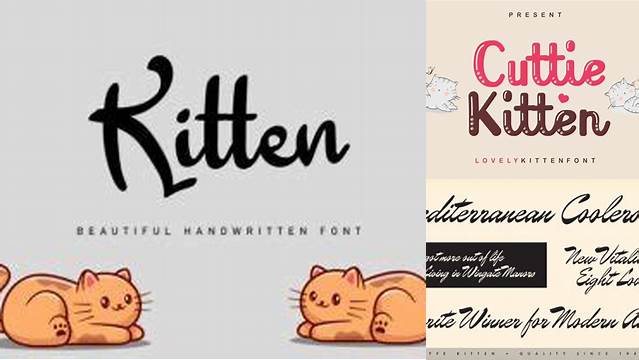
Hey everyone! Ever stumbled upon a font that just screams retro cool? That's exactly what the Filmotype Kitten font is all about, guys. It’s got that mid-century vibe, that vintage charm that just makes your designs pop. And guess what? Today, we’re diving deep into how you can get your hands on this fantastic font for free. Yes, you heard that right! We're talking about a free download of the Filmotype Kitten font. So, buckle up, grab your favorite beverage, and let's get started. This isn't just about downloading a font; it's about unlocking a whole new world of creative possibilities. This article provides you with information on how to find the Filmotype Kitten font, how to use it, and what makes it so special in the world of design.
H2: Filmotype Kitten Font: A Blast from the Past
Alright, first things first: what is Filmotype Kitten? Picture this: you're flipping through old magazines, vintage advertisements, or classic movie posters. That's the vibe, guys! Filmotype Kitten is a script font that perfectly captures the essence of mid-century design. Its flowing curves, playful strokes, and overall elegance make it a favorite among designers who want to add a touch of nostalgia to their projects. It's not just a font; it's a statement. It tells a story, evokes a feeling, and instantly transports you back to a time of soda fountains, drive-in movies, and classic cars. The beauty of Filmotype Kitten lies in its versatility. Whether you're designing a logo, creating website headers, crafting social media posts, or even printing wedding invitations, this font adds a unique touch that elevates your work. The meticulous design of the font, with its carefully crafted letterforms, ensures that the text is both readable and visually appealing. It's a font that's meant to be enjoyed, a font that encourages creativity. So, what makes Filmotype Kitten stand out from the crowd? It's the attention to detail, the careful balance between elegance and playfulness, and the sheer character it possesses.
Filmotype Kitten font isn’t just a font; it’s an experience. It's like finding a hidden gem in a treasure chest of design options. Its retro flair adds a certain something to every project, bringing it to life in a way that few other fonts can manage. Its legacy stretches across various mediums, from print to digital, always leaving a mark of timeless elegance. So when you're choosing Filmotype Kitten, you’re not just choosing a font; you’re choosing a piece of design history, a dash of nostalgia, and a whole lot of creative freedom. You are embracing a font that speaks volumes, and its appeal lies in its ability to bring that classic charm to modern designs. Every curve and stroke is a reminder of an era where design was all about craftsmanship, where every element was carefully considered.
H2: Using Filmotype Kitten Font in Your Designs
Use it for logos and branding. The unique look of Filmotype Kitten can make your brand stand out from the crowd. Use it for website headers and titles. A well-chosen header can grab your visitors' attention. Create stunning social media graphics, such as quotes, announcements, or promotional materials, which add a touch of vintage flair. Use it to design invitations or greeting cards, where the font's elegant curves can make your invitations feel warm and inviting. Also, you can create print materials such as posters, flyers, or even product packaging, which will give them a distinctive look. Remember to choose colors that complement the font. Soft, pastel shades and bold, vibrant colors work well with Filmotype Kitten. Try experimenting with different sizes, weights, and kerning (the space between letters) to create a balanced and visually appealing design. The great thing about Filmotype Kitten is that it can be combined with other fonts. Consider pairing it with a simple, sans-serif font for body text to create a nice contrast. The key is to experiment and have fun.
H2: The Filmotype Kitten Font: A Design Finale
And there you have it, guys! We’ve covered everything you need to know about the Filmotype Kitten font, from getting it free to using it in your designs. This font is more than just a font; it's a gateway to a world of creative possibilities. Its vintage style makes it a great choice for logos, invitations, print, and any design. Always feel free to experiment with the font. The key to success is to be creative and explore different design choices. And the most important thing is to make the most of the font. So go out there, get creative, and let Filmotype Kitten add that touch of retro magic to your designs. Happy designing!